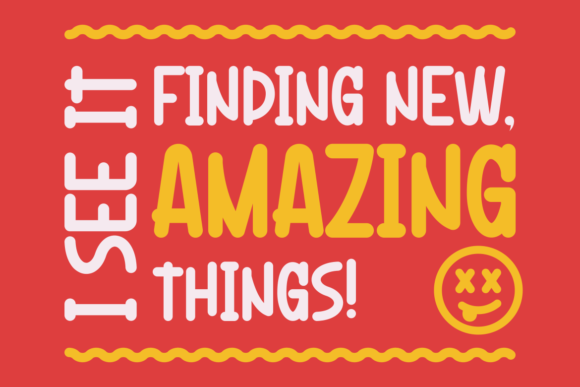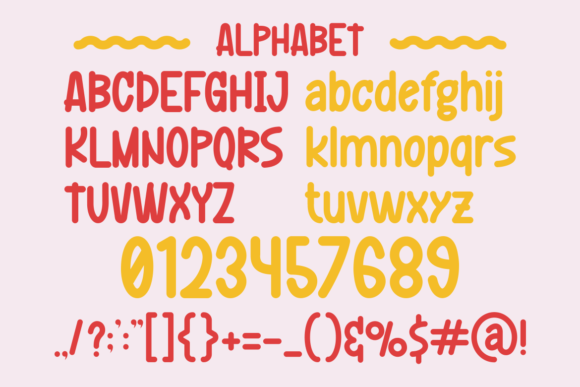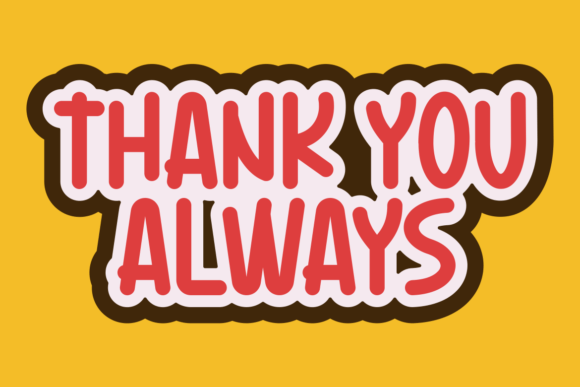
Introducing Charku Font: The Modern and Playful Typeface for Creative Projects
In the world of typography, fonts play a crucial role in conveying the tone and personality of a brand. For designers and crafters, finding the perfect font can be a daunting task. However, if you’re looking for a modern and playful typeface that can elevate your branding projects, look no further than Charku Font. This lovely font is suitable for a wide range of applications, from logo design to t-shirt printing, product packaging, and more.
What Makes Charku Font Stand Out?
Charku Font is a unique and eye-catching typeface that is sure to make your designs stand out. Its modern and playful aesthetic makes it perfect for brands that want to convey a sense of fun and creativity. The font’s clean lines, subtle curves, and balanced proportions create a visually appealing effect that is both stylish and legible.
Key Features of Charku Font
- Modern and Playful Design: Charku Font boasts a fresh and contemporary design that is perfect for brands that want to look modern and trendy.
- High Versatility: This font is suitable for a wide range of applications, including logo design, t-shirt printing, product packaging, and more.
- Excellent Legibility: Charku Font is designed to be highly legible, making it perfect for use in both digital and print materials.
- Easy to Pair: This font pairs well with a variety of other typefaces, making it easy to use in combination with other fonts.
Use Cases for Charku Font
Charku Font is an incredibly versatile typeface that can be used in a wide range of creative projects. Here are some examples of how you can use this font:
- Logo Design: Create a memorable and eye-catching logo for your brand using Charku Font.
- T-Shirt Printing: Design custom t-shirts with Charku Font for a unique and stylish look.
- Product Packaging: Elevate your product packaging with Charku Font and make your brand stand out on store shelves.
- Social Media Graphics: Use Charku Font to create engaging social media graphics that showcase your brand’s personality.
Why Designers and Crafters Love Charku Font
Charku Font has quickly become a favorite among designers and crafters due to its unique combination of style, versatility, and legibility. Here are some reasons why:
- Unique Aesthetic: Charku Font offers a fresh and modern aesthetic that is hard to find in other typefaces.
- Ease of Use: This font is incredibly easy to use and pairs well with a variety of other typefaces.
- High Quality: Charku Font is a high-quality typeface that is designed to deliver exceptional results in a wide range of applications.
In conclusion, Charku Font is a modern and playful typeface that is perfect for designers and crafters looking to elevate their branding projects. With its unique aesthetic, high versatility, and excellent legibility, this font is sure to become a staple in your design toolkit. Whether you’re working on a logo design, t-shirt printing, product packaging, or social media graphics, Charku Font is an excellent choice.